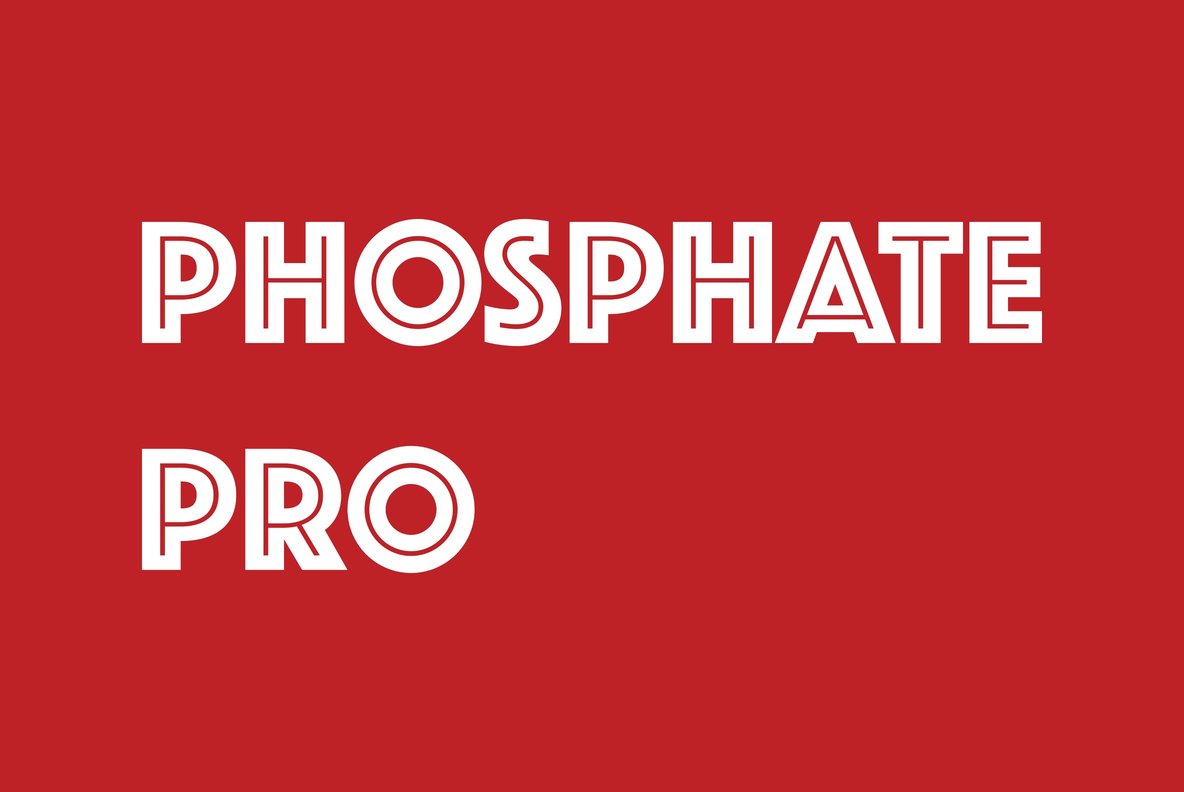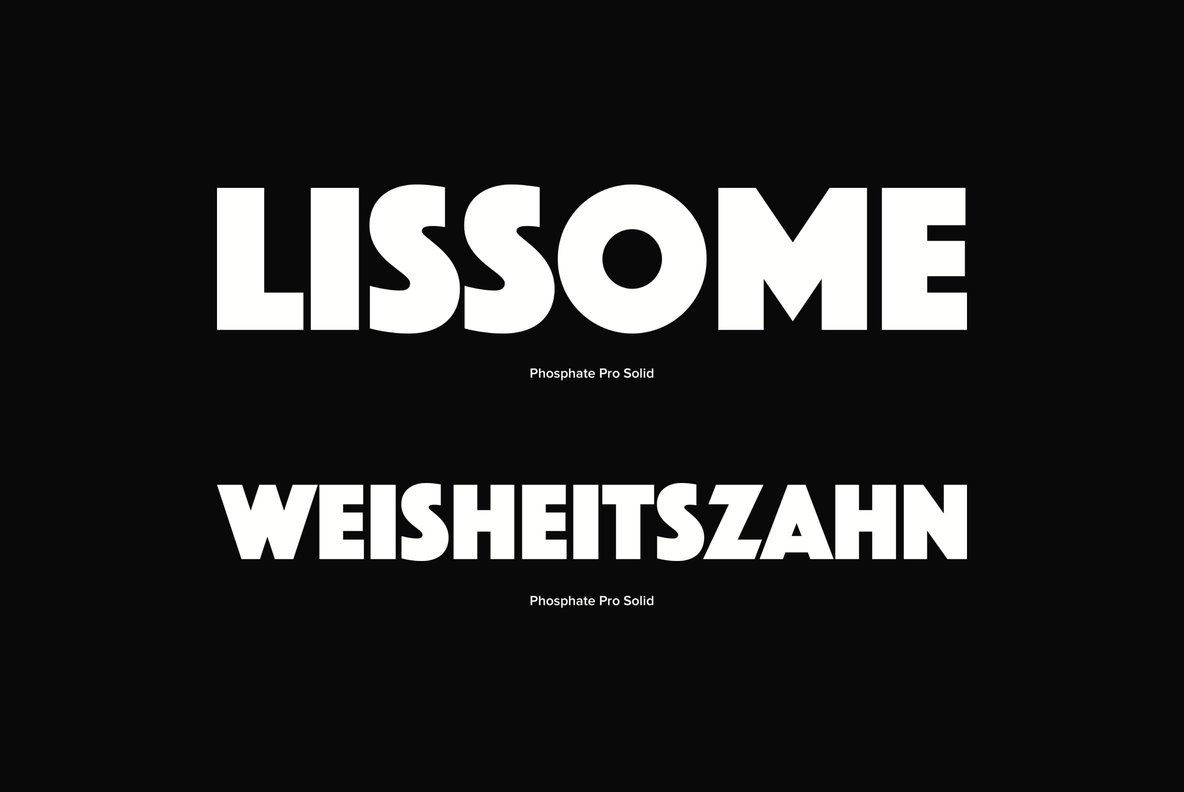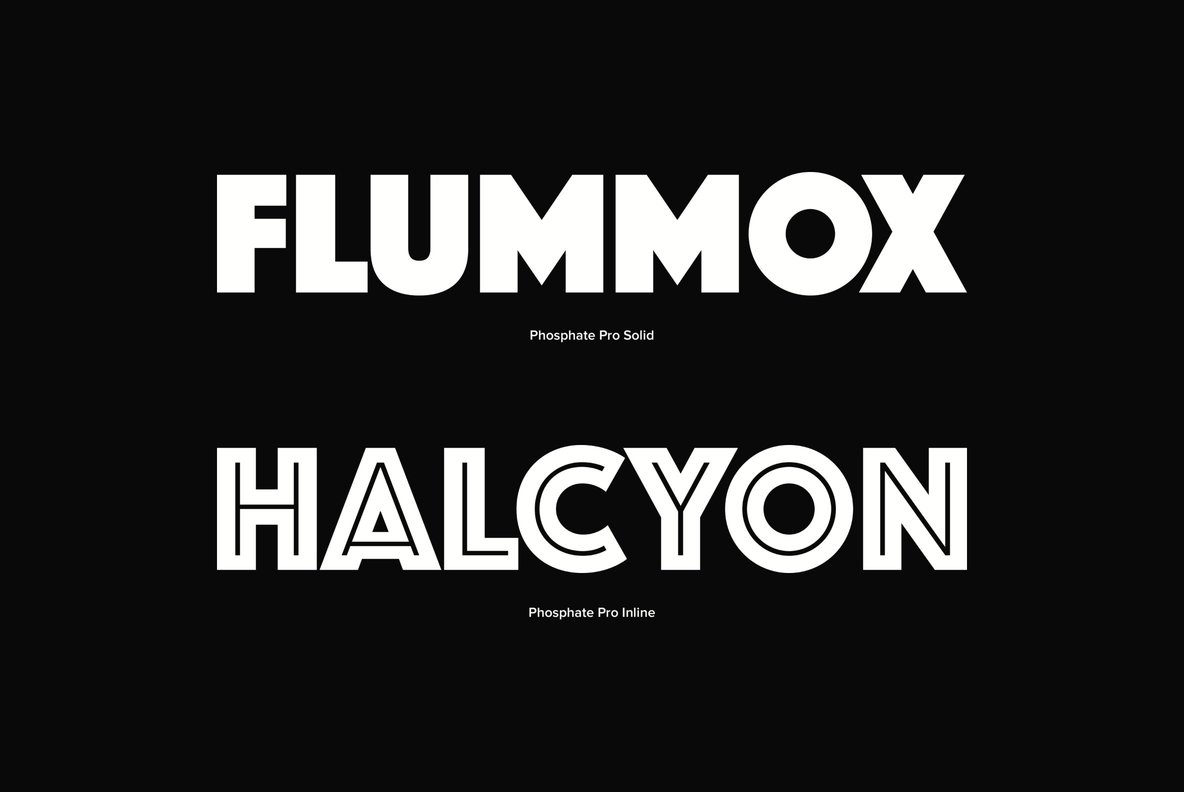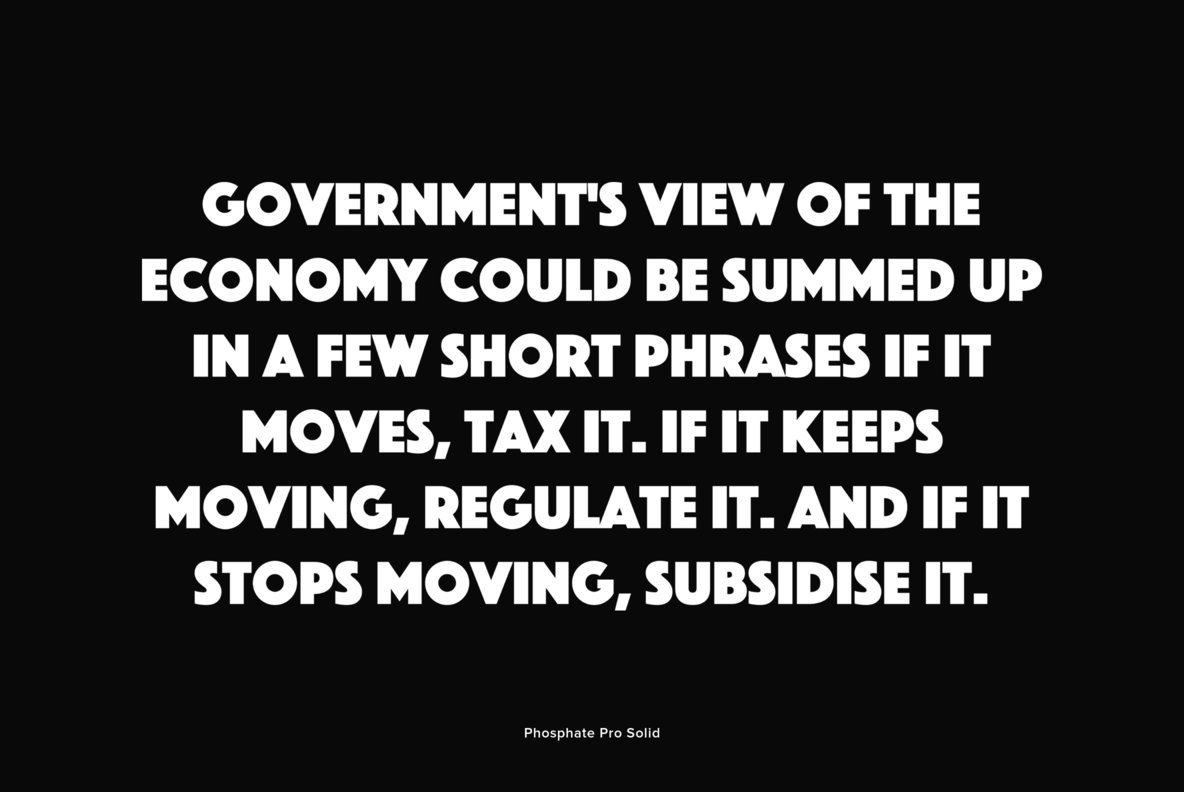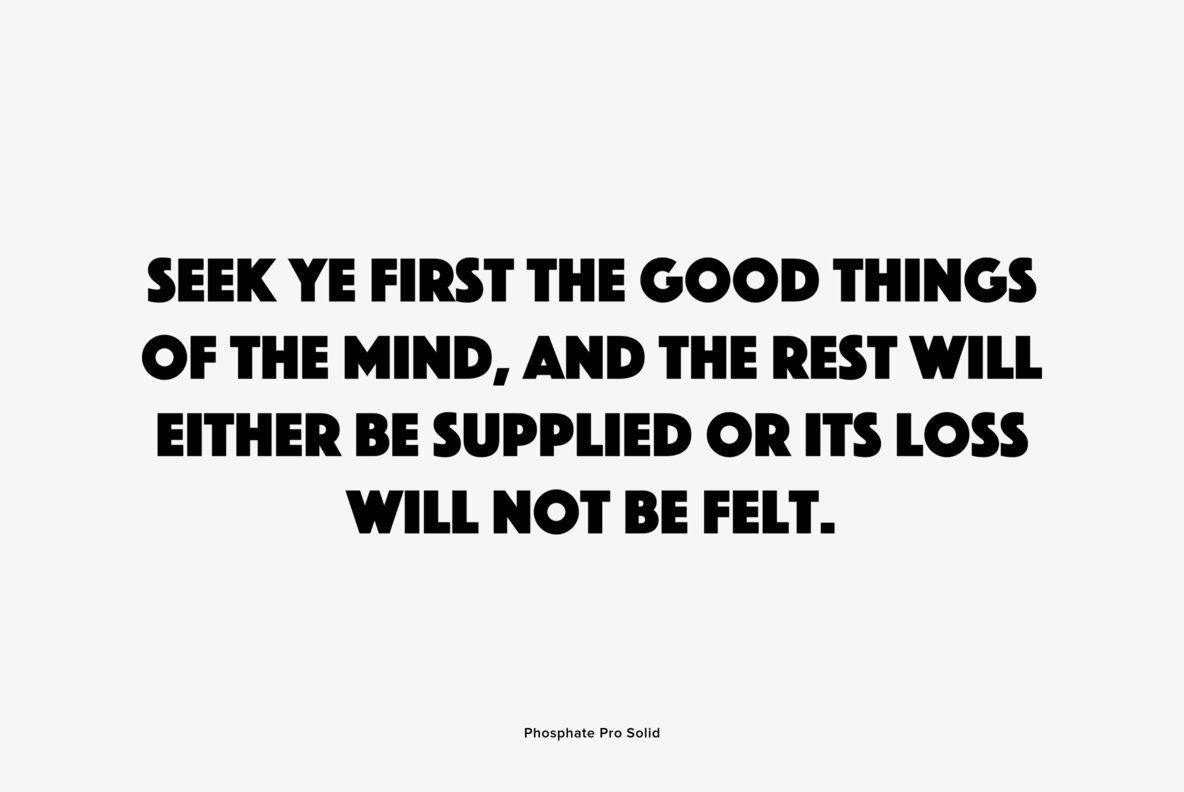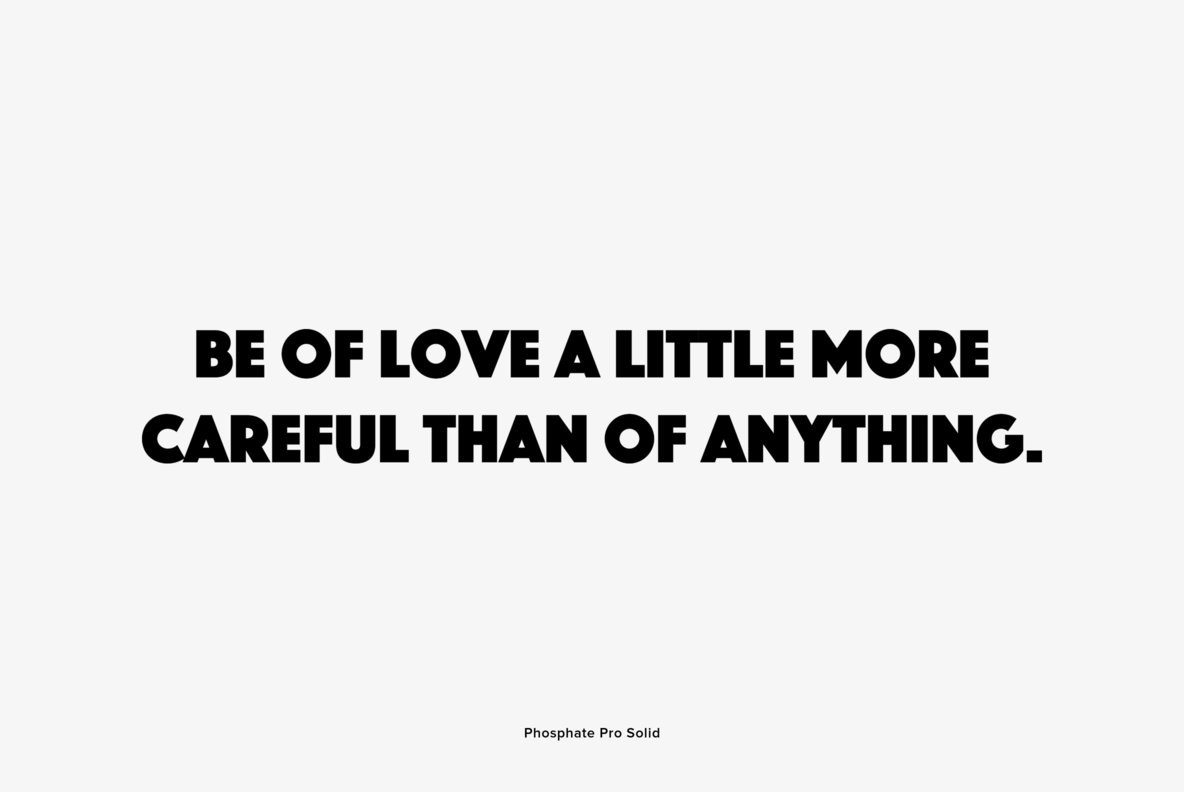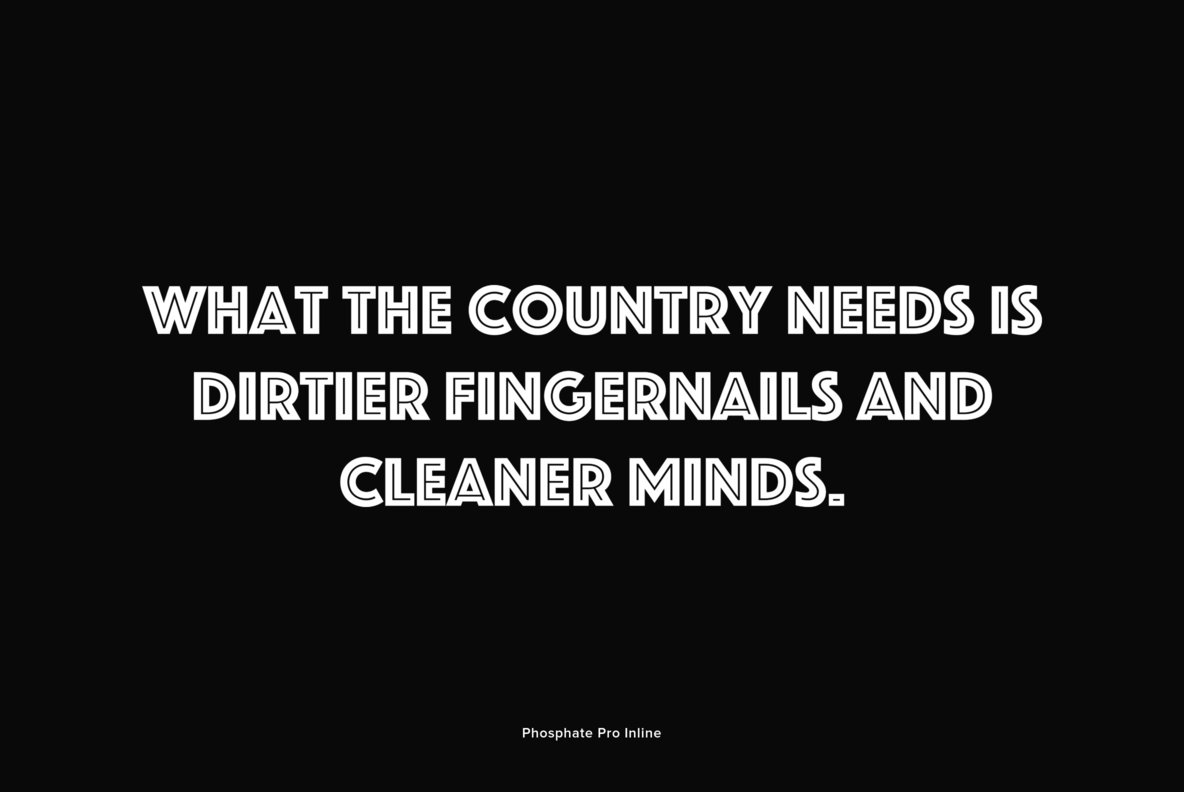
Designed by Steve Jackaman. Based on the design Phosphor by J. Erbar, for Ludwig & Mayer, circa 1922-30. The newly redrawn Phosphate Pro contains all the high-end features expected in a quality OpenType Pro font.